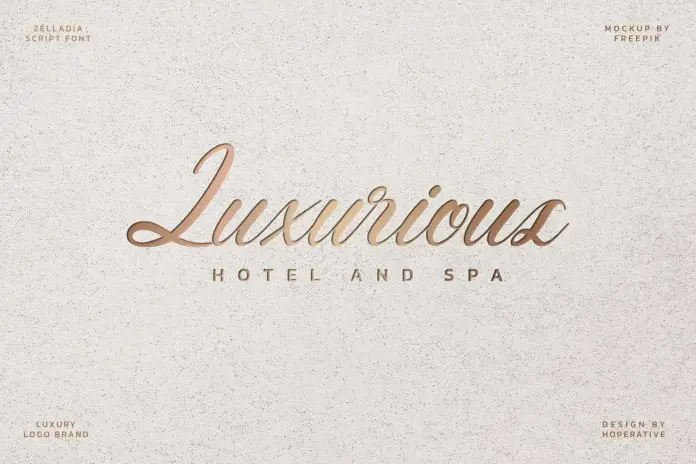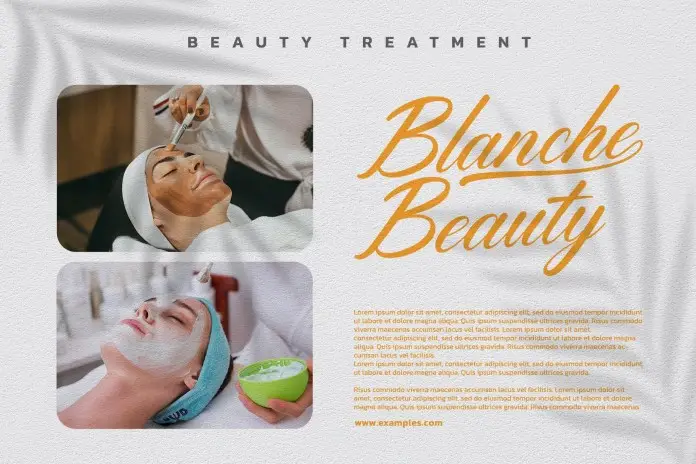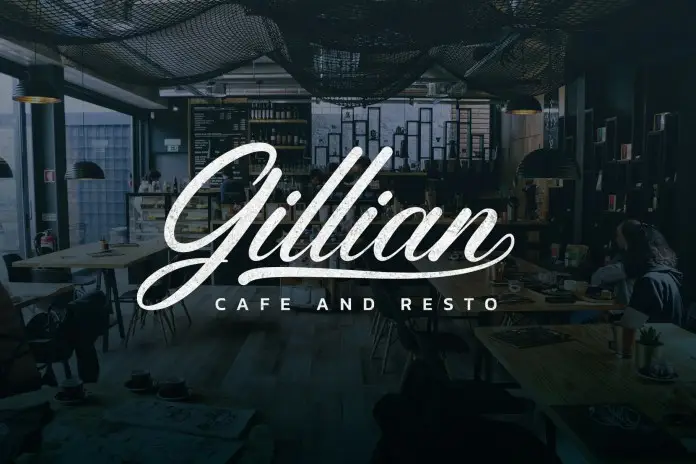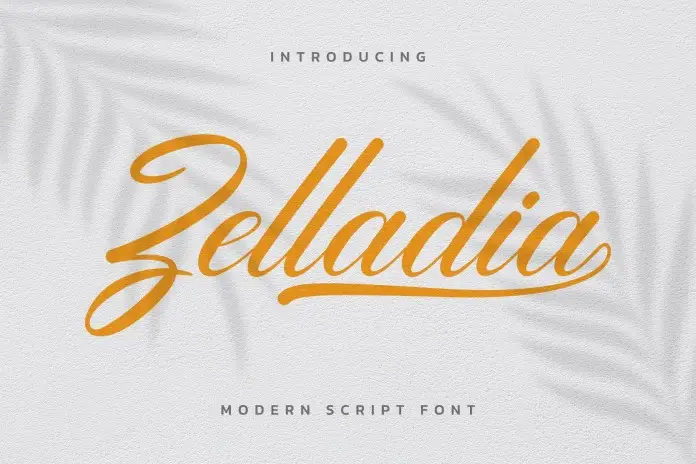
Zelladia Script Font
The Zelladia Script Font is a beautifully crafted typeface that exudes elegance and sophistication. With its flowing curves and unique character set, this font is perfect for a variety of design projects.
• Stylish script design
• Multilingual support
• Variety of ligatures for enhanced typography
• Weights: Regular
• Great for wedding invitations and greeting cards
• Use in web design for a personal touch